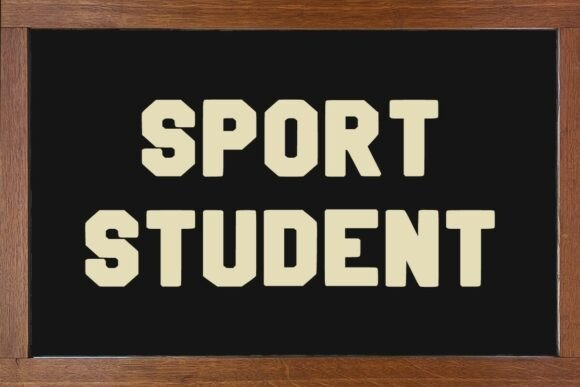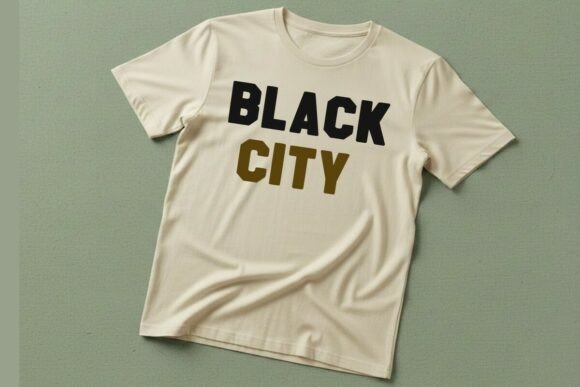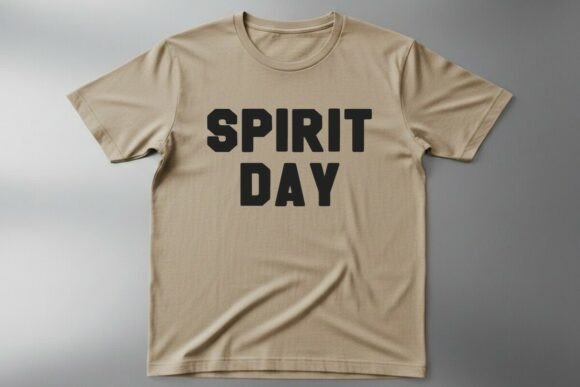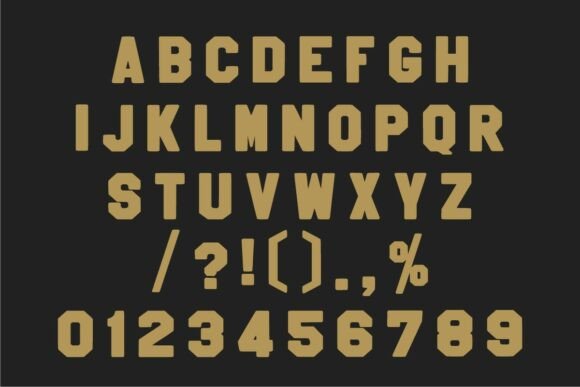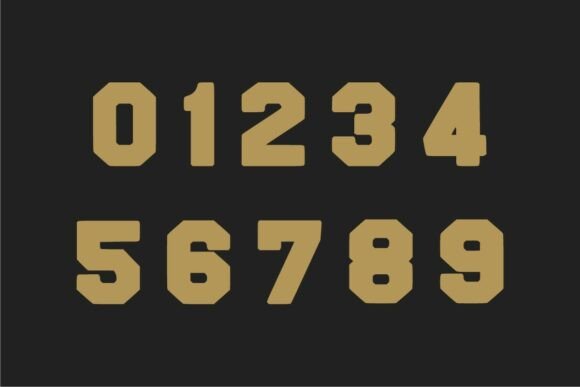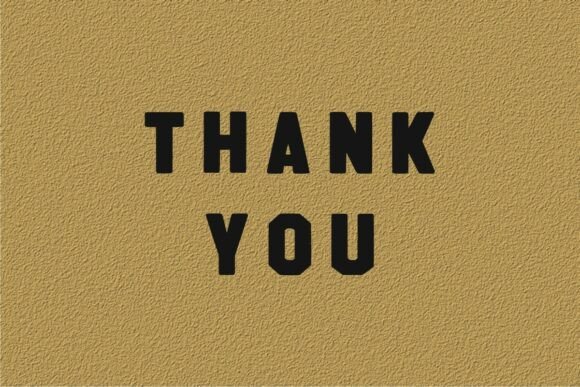
Introduction to Jersey School Font Font
Fonts play a crucial role in design, and the Jersey School Font font is a typeface that brings both character and versatility to any project. Whether you’re working on a branding project, a website, or a print design, the Jersey School Font font offers a unique style that can elevate your work.
Jersey School, a font that beautifully captures the essence of vintage charm and collegiate athleticism.
Perfectly poised for winter and festive creative endeavors, this high-impact display font instantly adds a touch of retro allure Whether itβs to enhance your brand identity, adorn the wraps of your products, inspire through invitations, captivate with quotes, style up t-shirts, or draw attention to labels and posters, Jersey School is your trusted partner.
The Jersey School Font font is more than just a typeface β it’s a design tool that helps you communicate your message with style and clarity. Its unique character set and versatile design make it suitable for a wide range of applications, from elegant invitations to bold headlines.
With its carefully crafted letterforms and balanced proportions, the Jersey School Font font ensures readability and visual appeal across all mediums.
The Jersey School Font font stands out with its unique design, exceptional readability, and versatility across various design applications.